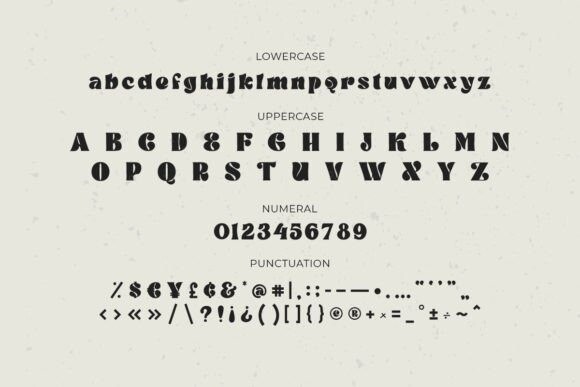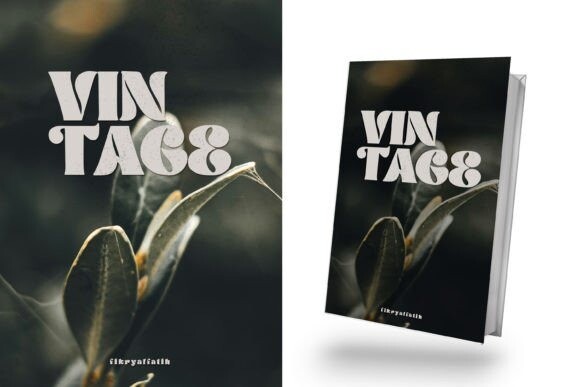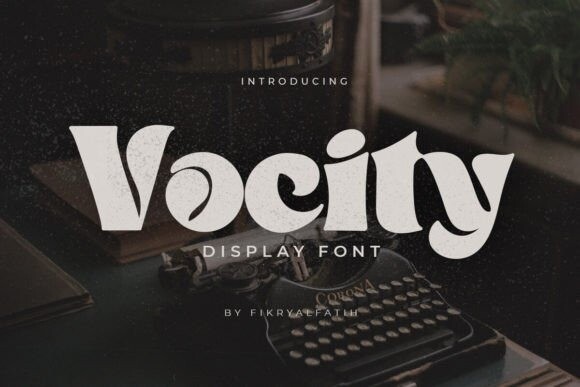
Vocity Font
Designer: Fikry Alfatih
Vocity Font is a display typeface that offers a bold and stylish vintage touch. It not only looks stylish but also charming. Its smooth curves make it attractive, which brings an elegant style.
So, it is suitable for various designs such as beauty design, elegant crafts, layout design, advertising branding, design templates, etc. Whatever project you are working on.